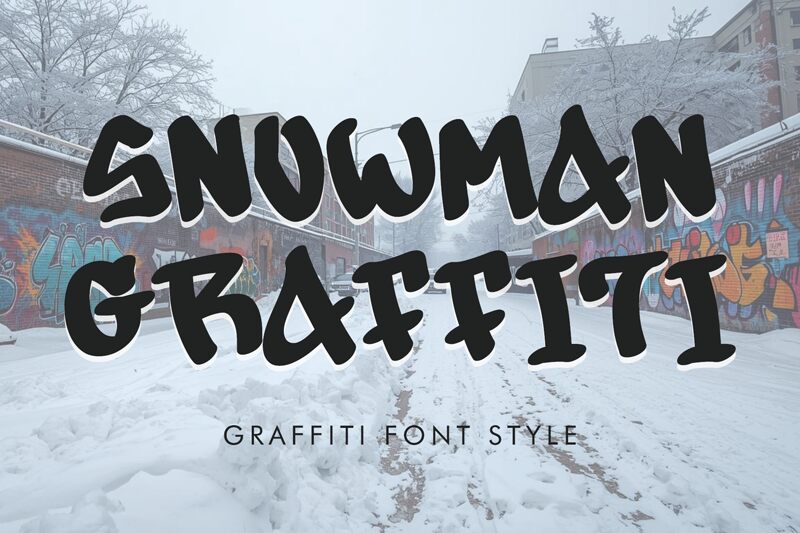
Snowman Graffiti font by Yoga Letter is an expressive graffiti urban font style with a unique character. This free font is described as youthful, modern, and impactful with an artistic edge to it. All fonts within consist of capital glyphs only, with numbers and limited punctuations available. It features an original graffiti street-inspired profile and visual elements.
This font was created for an urban typography application context which typically includes album covers, posters, books, and magazines. Other uses include flyer designs, social media designs, apparel designs, skateboards, and notebooks. It can also fit effortlessly within street signage.